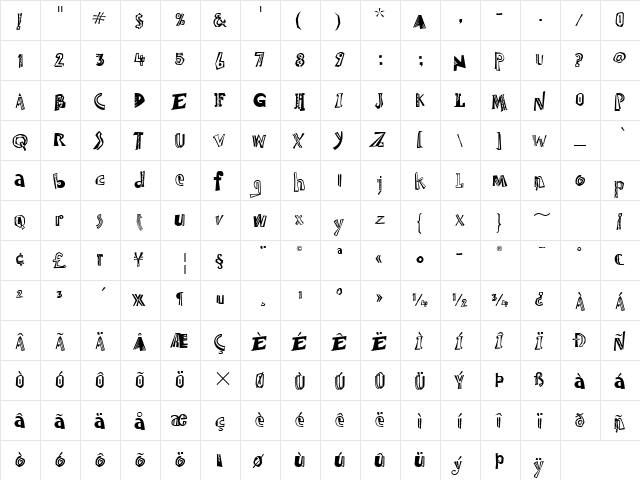
Jambalaya Too ITC TT Roman
Design Context for Jambalaya Too ITC TT Typeface
Jambalaya Too ITC TT is a composed and adaptable typeface that performs quietly and consistently across a wide range of design contexts.